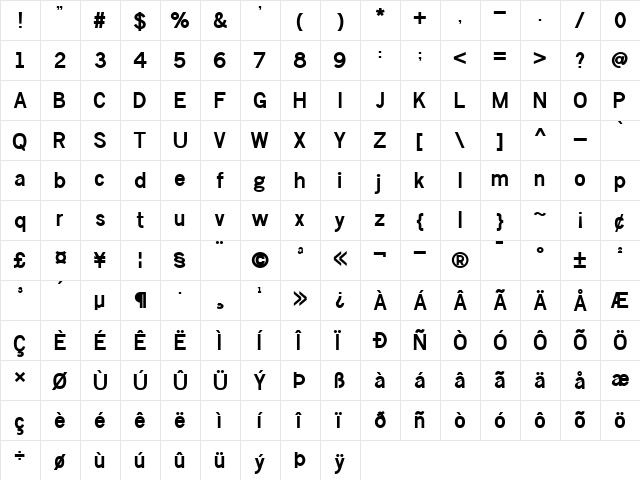
Chester Sans Bold
Design Context for Chester Sans Typeface
Chester Sans offers clean, dependable letterforms without strong stylistic allegiance, making it a practical choice for designers who need flexibility. The heavy weight commands attention and anchors typographic hierarchies.